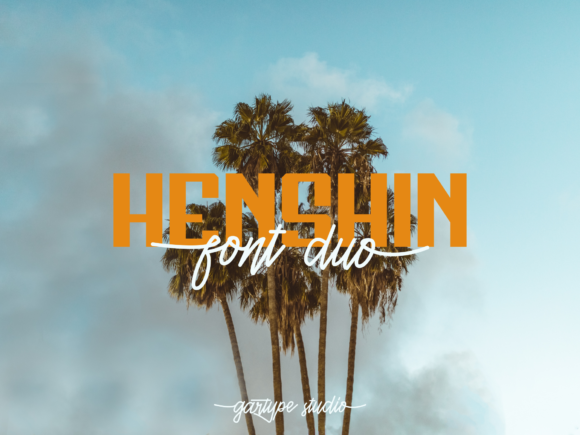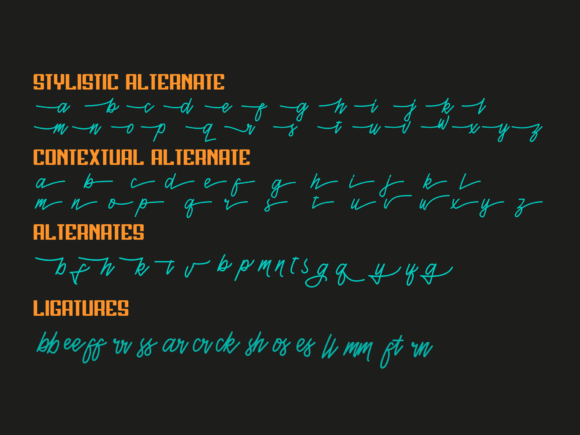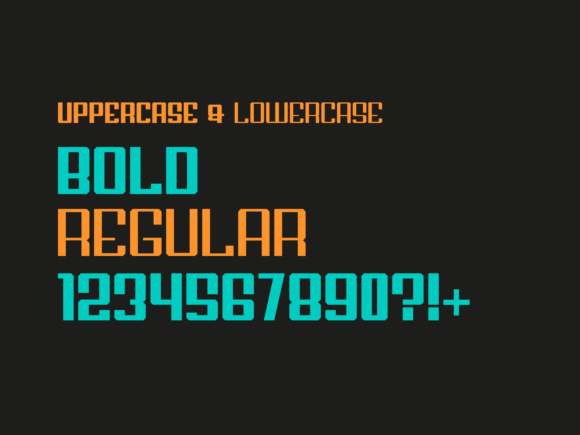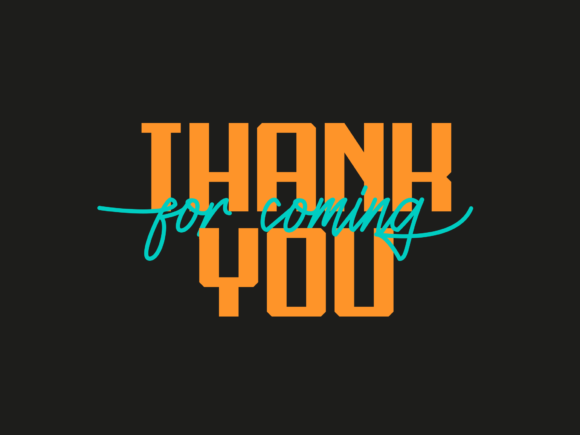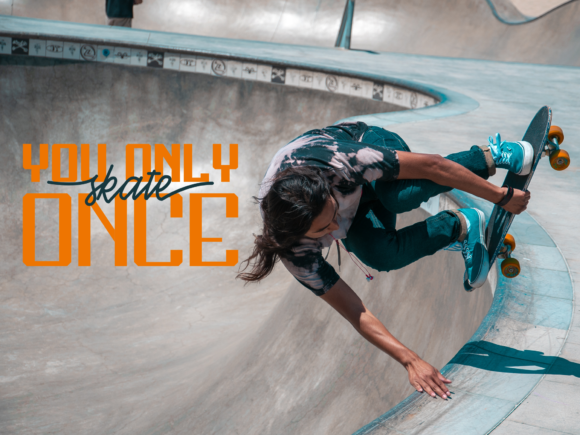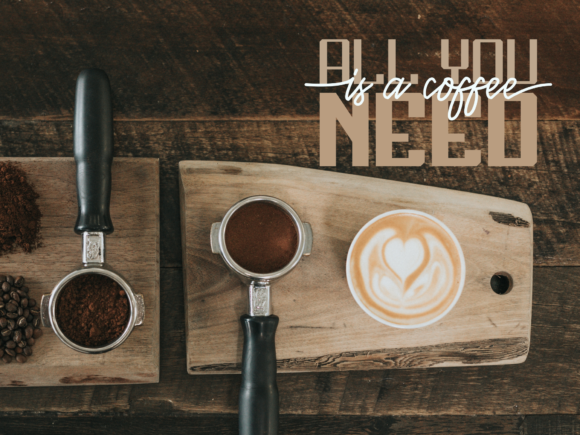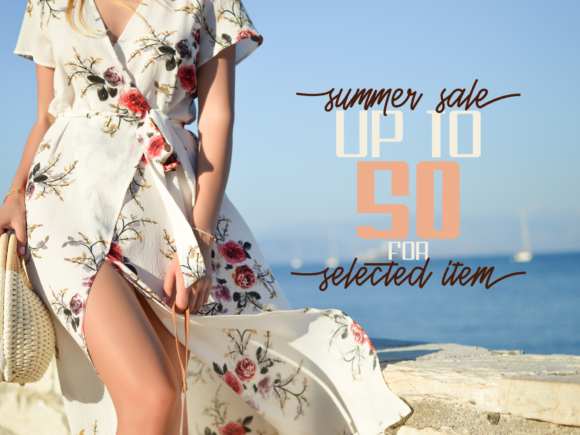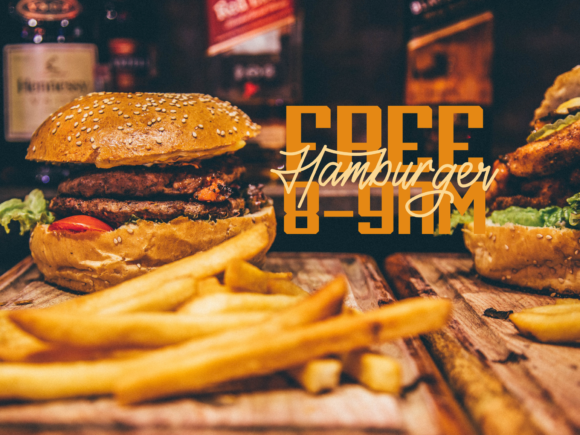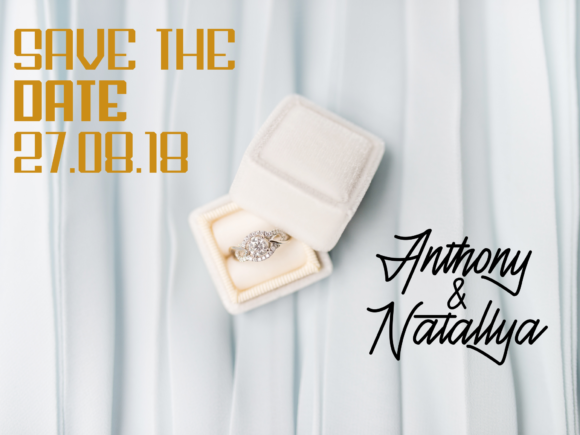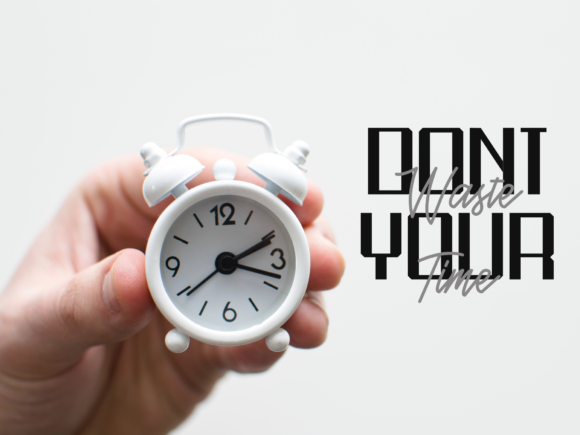
Henshin Duo Font
Henshin Duo is a combination of sans and script fonts that combines elements of a classical, elegant, bold and flexible typeface.
Henshin is suitable for advertising your products such as the menu at the cafes, restaurants and more. Henshin is also very suitable for wedding invitations, music albums, music concerts, magazine covers, website texts, quotes, etc.